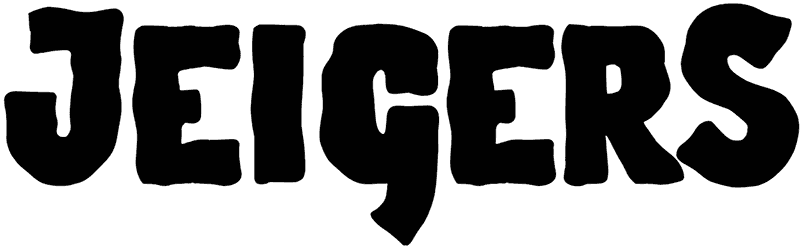
Prehistoric Caveman Font
Add this limited cartoon font for your typography to look fun, exciting, and have a playful feel. Their characters are bold, thick, and distorted. It’s not that complicated to read and it gives your design a comical look.
Prehistoric Caveman is an excellent choice especially as it contains capital A to Z letters, numbers, and punctuations leaving aside lowercase letters. Have in mind established places that this cartoon font will come in use are books, animations, games, stories, and posters.
*Note: Some characters are decorative bones & skulls.
Designed by: Hawtpixel